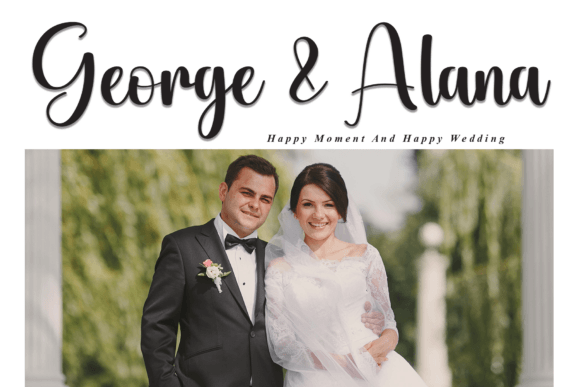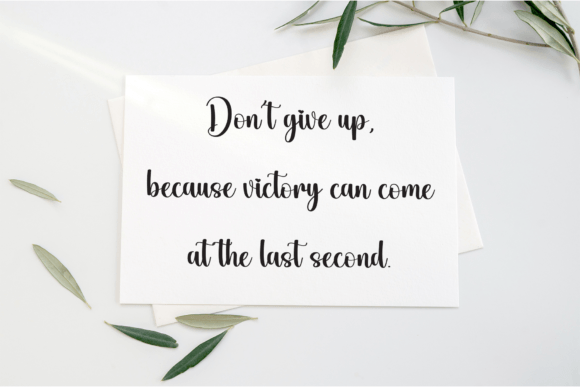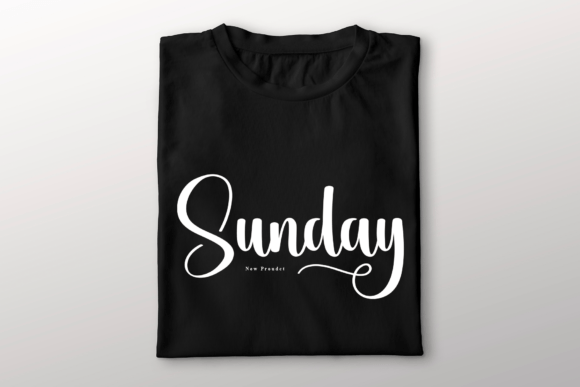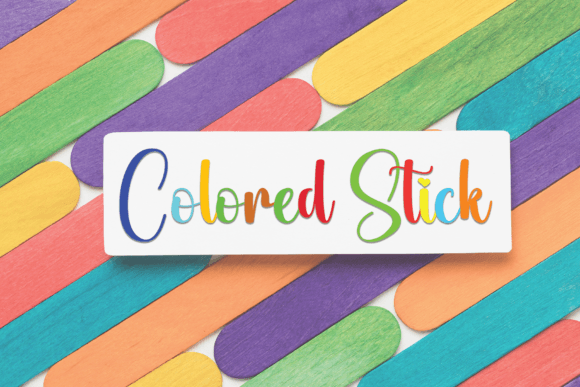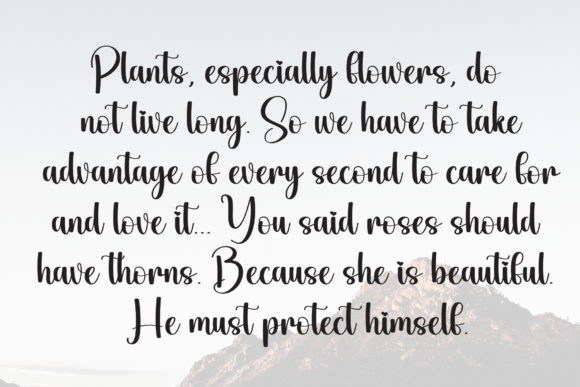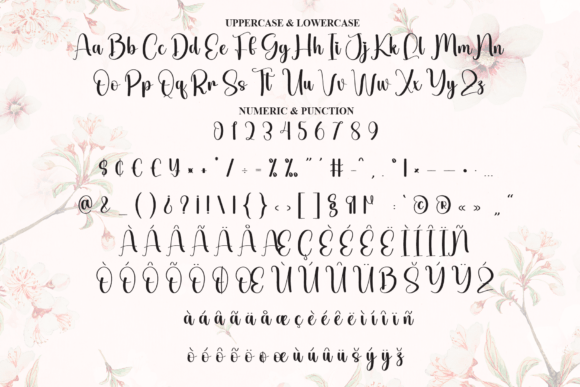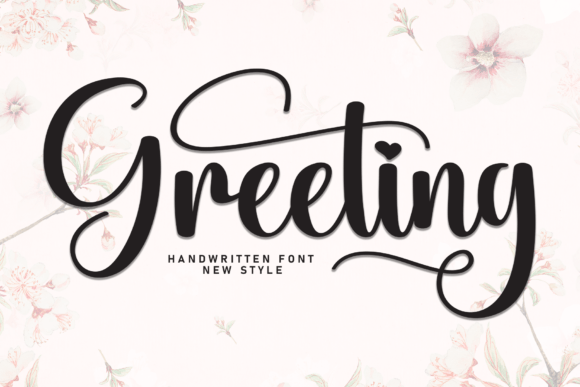
Introducing Greeting Font: Elevate Your Designs with Elegance
In the world of design, typography plays a crucial role in conveying the tone and personality of a brand or project. When it comes to creating visually stunning and sophisticated designs, the right font can make all the difference. This is where Greeting Font comes in – an elegant script font that can elevate your designs with its smooth, flowing letterforms and handcrafted feel.
The Perfect Font for Wedding Invitations and More
Greeting Font is particularly perfect for wedding invitations, logos, branding, and social media. Its elegant and refined aesthetic makes it an ideal choice for designers and crafters looking to add a touch of sophistication and charm to their projects. Whether you’re designing a wedding invitation, a logo, or a social media post, Greeting Font is sure to impress.
What Sets Greeting Font Apart
So, what sets Greeting Font apart from other fonts? Here are a few key features that make it a standout:
- Smooth, flowing letterforms: Greeting Font features smooth, flowing letterforms that give it a elegant and refined look.
- Handcrafted feel: The font has a handcrafted feel that adds a touch of personality and uniqueness to your designs.
- Highly versatile: Greeting Font is highly versatile and can be used for a wide range of design projects, from wedding invitations to logos and branding.
- Elegant and sophisticated: The font has an elegant and sophisticated aesthetic that is sure to impress.
How to Use Greeting Font in Your Designs
Using Greeting Font in your designs is easy. Here are a few tips to get you started:
- Pair it with a sans-serif font: Pair Greeting Font with a sans-serif font to create a beautiful contrast and add visual interest to your designs.
- Use it for headings and titles: Greeting Font is perfect for headings and titles, where its elegant and refined aesthetic can really shine.
- Experiment with different colors and textures: Don’t be afraid to experiment with different colors and textures to add depth and interest to your designs.
Why Designers and Crafters Love Greeting Font
Designers and crafters love Greeting Font for a variety of reasons. Here are a few:
- Easy to read: Despite its elegant and refined aesthetic, Greeting Font is easy to read and can be used for both headings and body text.
- High-quality design: The font is designed to high-quality standards, ensuring that it looks great in any design.
- Unique and distinctive: Greeting Font has a unique and distinctive look that sets it apart from other fonts.
In conclusion, Greeting Font is a beautiful and elegant script font that can elevate your designs with its smooth, flowing letterforms and handcrafted feel. Perfect for wedding invitations, logos, branding, and social media, this font adds a touch of sophistication and charm to any project. With its highly versatile and elegant aesthetic, Greeting Font is sure to become a favorite among designers and crafters.